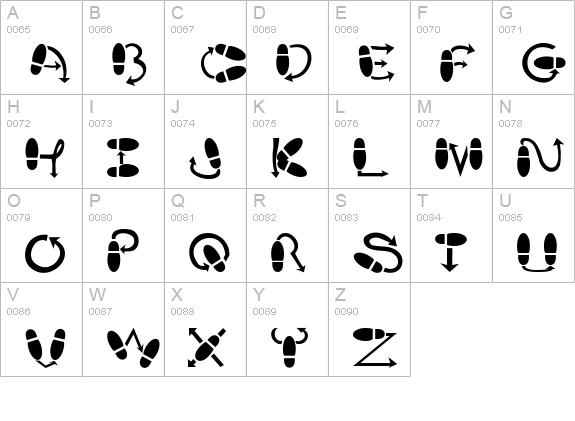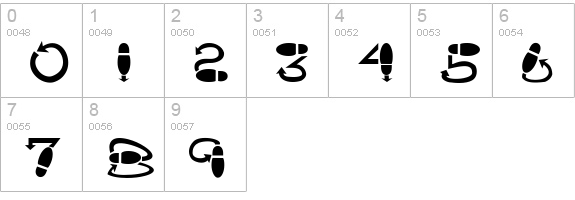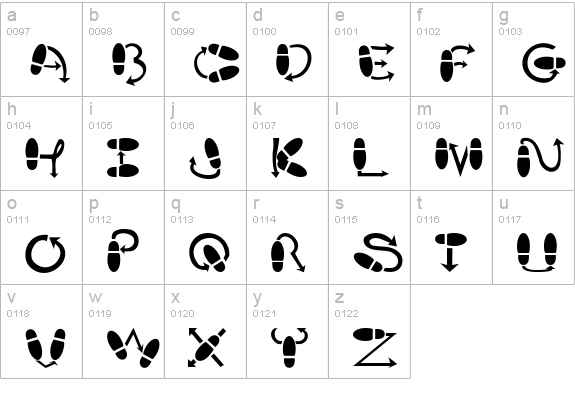
DanceStep Font Details
DanceStep font is a mesmerizing and energetic typeface designed for those who love to express themselves through dance. With its fluid and graceful letterforms, DanceStep captures the dynamic movements of dancers, bringing a sense of rhythm and motion to any project. This font is perfect for dance-related designs, including posters, flyers, logos, and websites. Its unique and contemporary style adds a touch of elegance and sophistication to any dance-themed project, making it stand out from the crowd. What sets DanceStep font apart is that it is not only visually stunning but also freely available to download at FontsMarket.com. This means that dancers, choreographers, and dance enthusiasts can unleash their creativity without any cost constraints. Whether you are a professional dancer, a dance studio owner, or simply someone who appreciates the art of dance, DanceStep font is a must-have in your design toolkit. The versatility of DanceStep font allows it to be used in a wide range of dance genres, from ballet and contemporary to hip hop and salsa. Its clean lines and balanced proportions make it easy to read and legible at any size, ensuring that your message is communicated effectively. With DanceStep font, you can bring your dance-related projects to life, capturing the essence of movement and expression. So why wait? Download DanceStep font for free at FontsMarket.com and let your creativity take center stage.